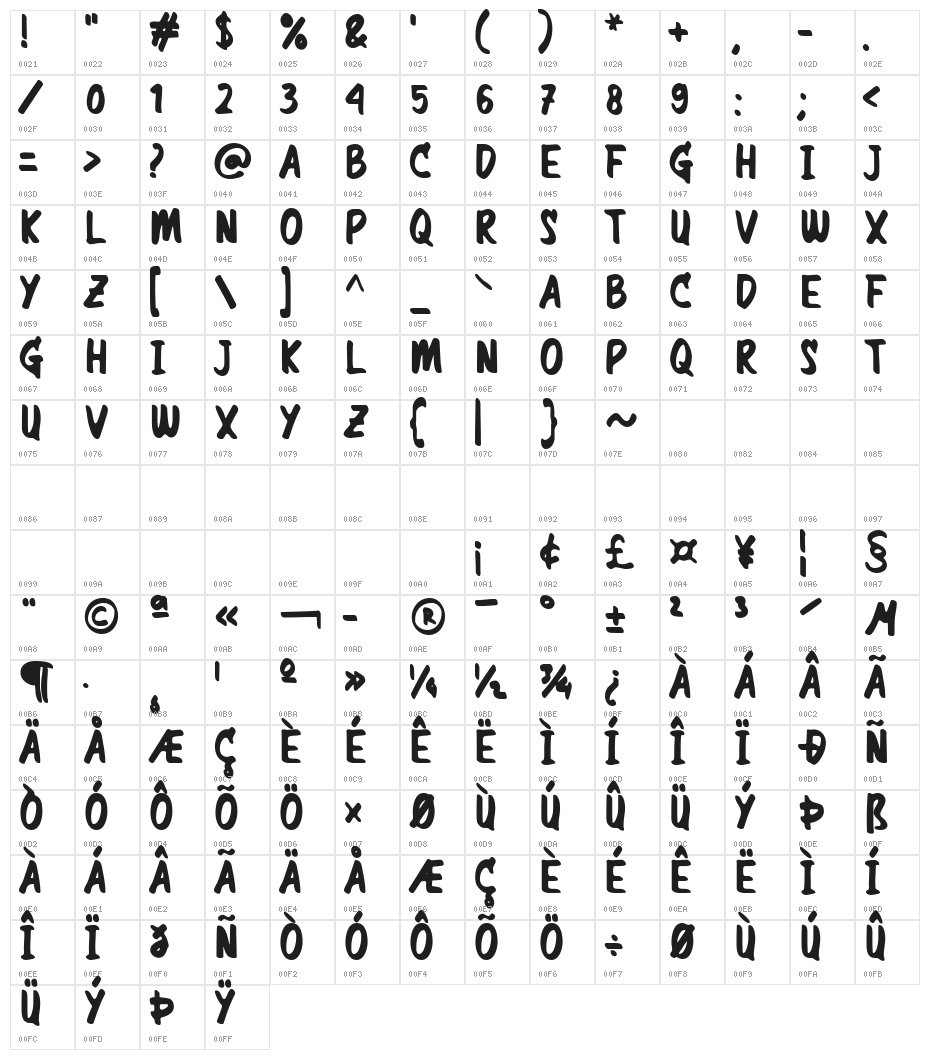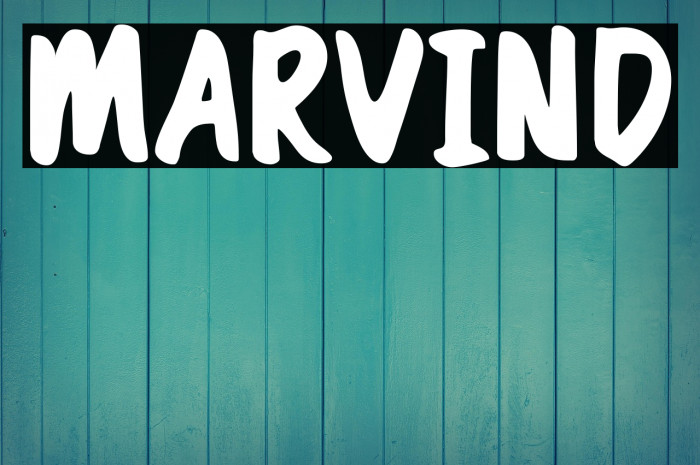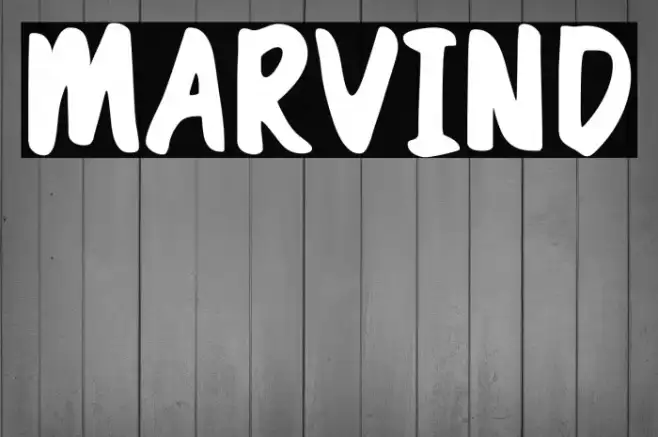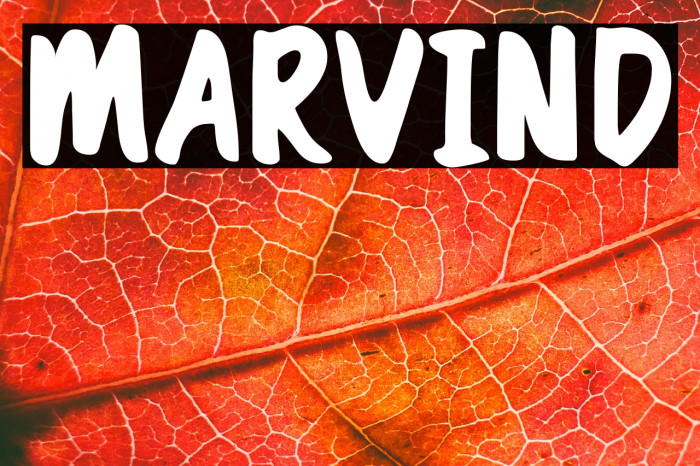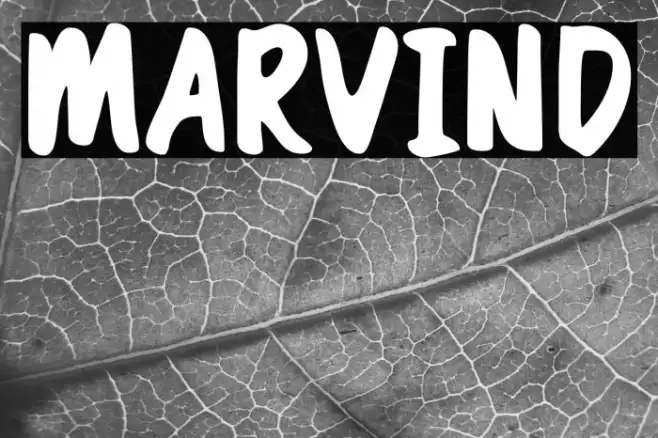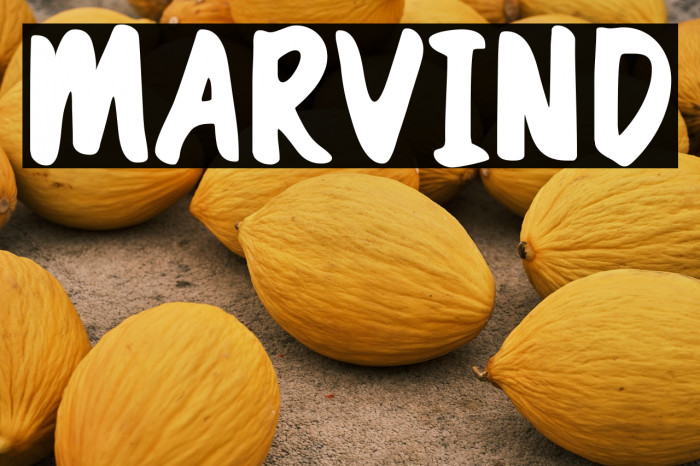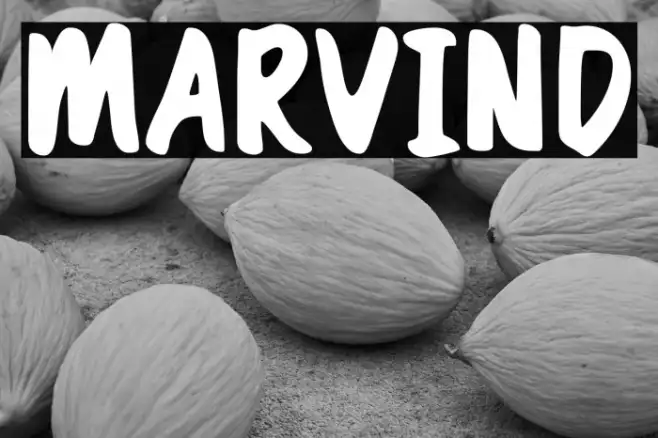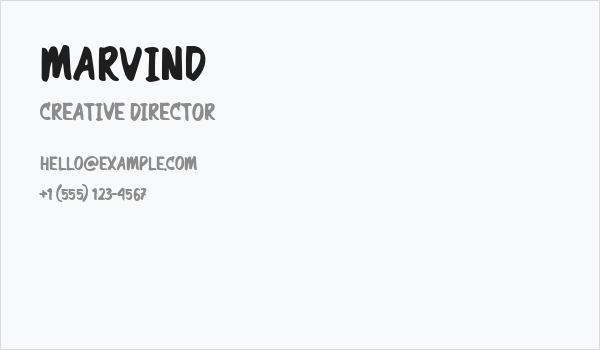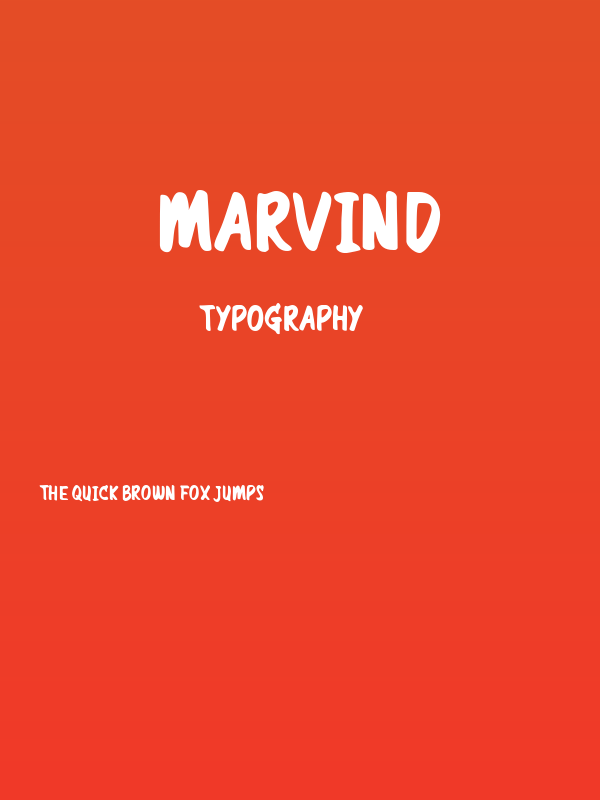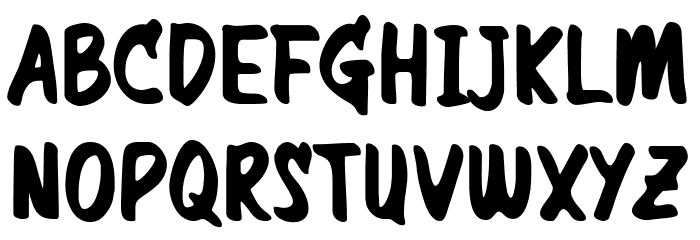
Marvind Font
Marvind Description
This font features a bold and playful design with rounded edges and a slightly irregular form, giving it a hand-drawn, casual appearance. The characters are thick and substantial, making them highly visible and impactful. The uppercase and lowercase letters maintain a consistent style, with a slight slant that adds to the dynamic feel. The numbers and special characters are equally bold, ensuring uniformity across all glyphs. This font's unique style makes it stand out, perfect for projects that require a fun and engaging look.
| Overall Style | Playful, Casual |
| Proposed Projects | Ideal for children's books, playful branding, posters, and social media graphics. |